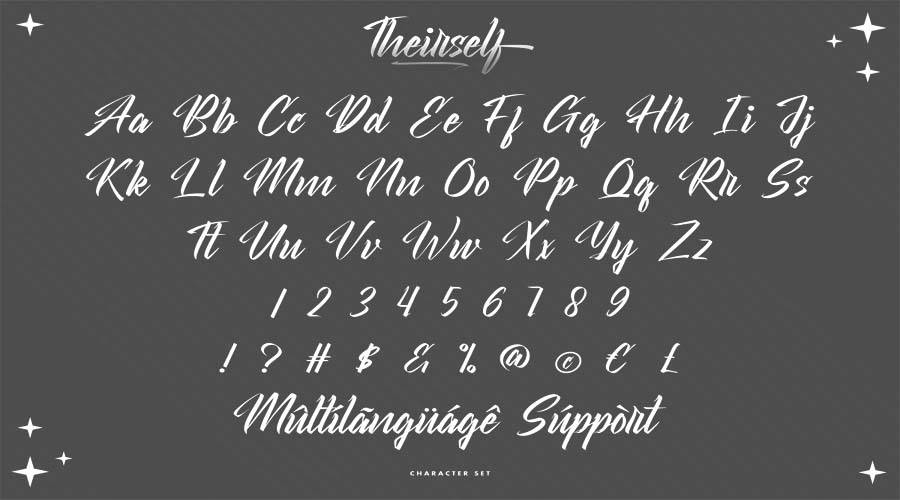
Theirself Font
Theirself Font is now available! It is the most recent Script font. On January 13, 2021, the Calligraphy fonts net designed and published the font.
Theirself Font is a Calligraphy script font that has been handwritten. This font is PERSONAL USE ONLY. It’s a highly adaptable typeface that works well in both large and small sizes. It comes with a different set of uppercase letters as well as a different set of lowercase letters to ensure you get the desired look. Regrettably, this lovely font is only available in TTF format.
Theirself Script is the perfect and beautiful font for luxury, lettering, and sophisticated brush font looks. It has a modern and elegant look within it. The font already has been used on the cover or lettering of cups in many coffee shops. It is also an excellent option for making any logos for coffee shops.